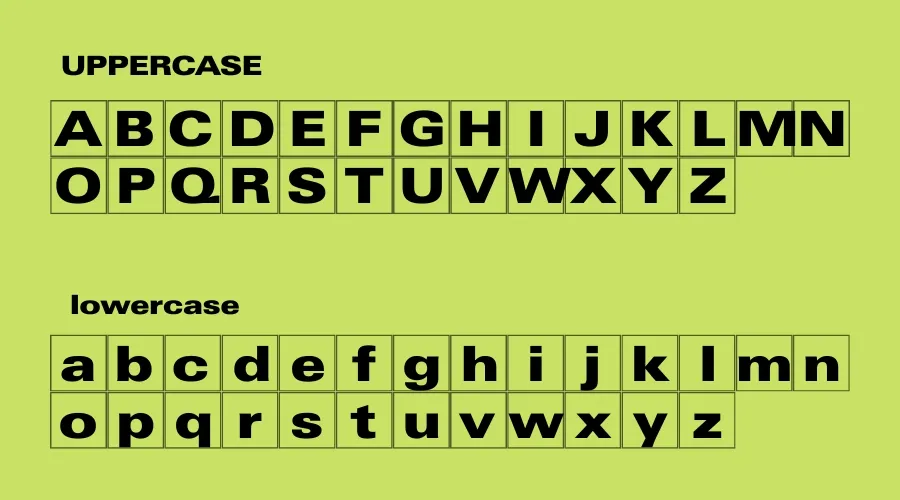
About Zurich Ublk EX BT Font
This font gained popularity in a very short time after it was published in the font work. because it supports multiple types of international languages.
This font was developed and released by Bitstream foundry and contains various types of weights (bold, italic, regular, Ultra Black Extended BT,) and styles. The subfamily of this outstanding typeface is regular and its copy-and-paste function available. It has amazing and stunning pairing quality and is best for pairing with Khula Font and making new modern projects.